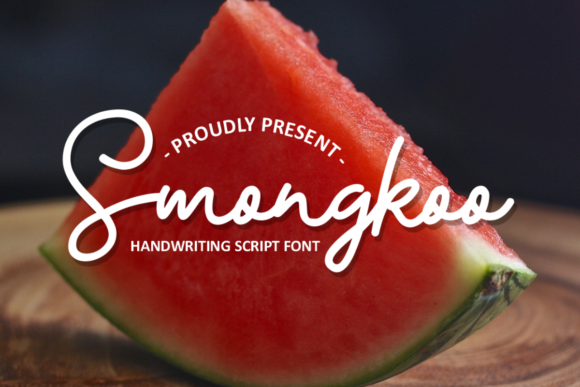
Fonts are like the secret spices in the vast culinary world of design. Smongkoo Font is that rare gem that adds a touch of urban sophistication and an undeniably cool vibe to your creations.
Picture this: your streetwear designs exuding an effortless swag, your wedding invitations radiating elegance, and your social media posts capturing attention like a magnet. Smongkoo Font is the secret ingredient that unlocks these design dreams.
With its charmingly thin lines and captivating curves, Smongkoo Font dances across your digital canvas, leaving a trail of visual delight. It's the perfect font to channel your inner urban rebel and make a bold statement.
So, why settle for ordinary fonts when you can unleash the power of Smongkoo Font? Let its stylish strokes elevate your designs to new heights, captivating your audience and leaving an unforgettable impression.